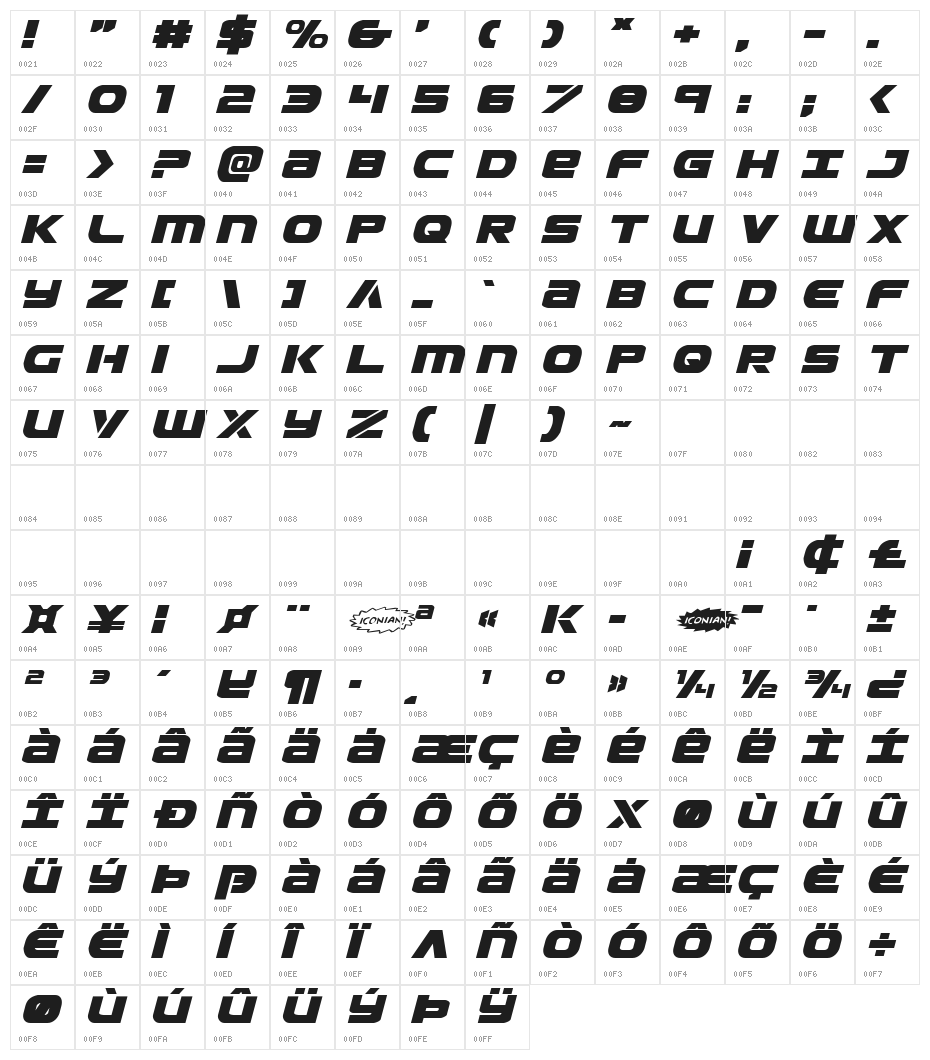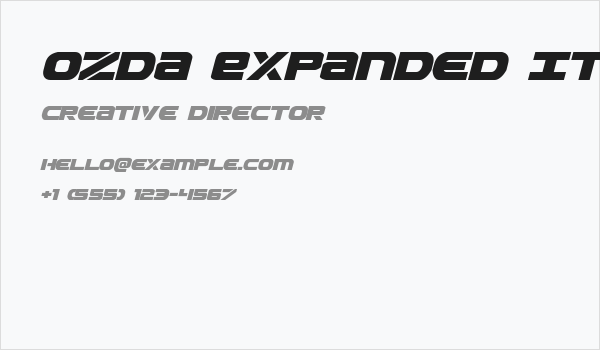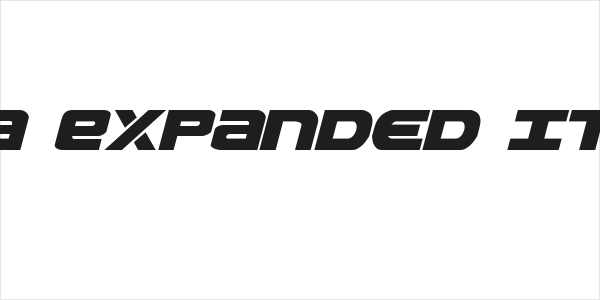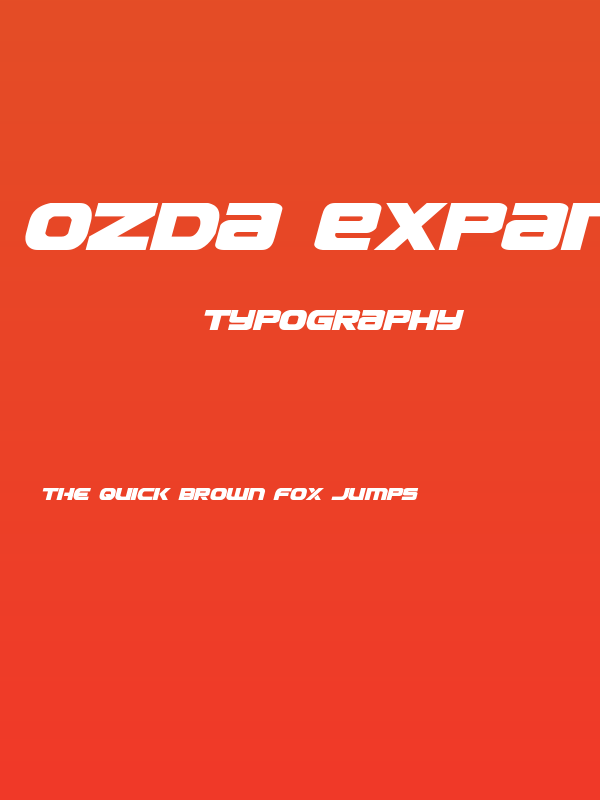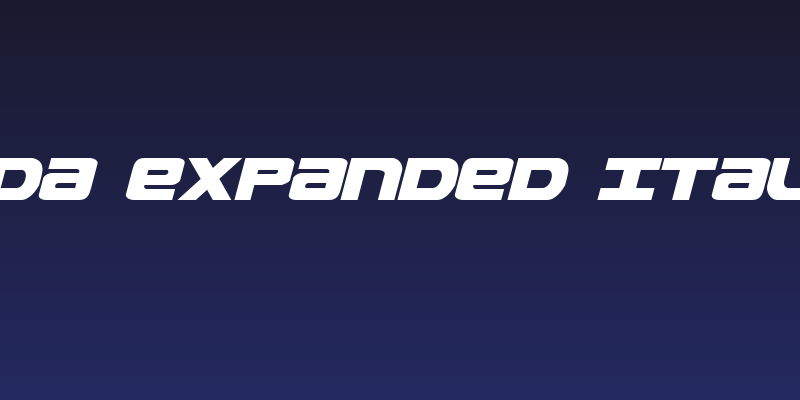
Ozda Expanded Italic Font
Ozda Expanded Italic Description
This font features a bold and dynamic style with a futuristic flair. The characters are italicized, giving them a sense of motion and speed. The expanded width of the letters adds to the boldness, making it stand out prominently. The design is geometric with sharp angles and clean lines, creating a modern and sleek appearance. The uniform stroke weight across characters maintains consistency, while the slight slant enhances its energetic and forward-looking aesthetic. This font is ideal for projects that require a strong visual impact and a contemporary feel.
| Use Case | Logos, Headlines, Branding |
| Proposed Projects | Ideal for branding, sports team logos, technology-related designs, and modern advertising campaigns. |